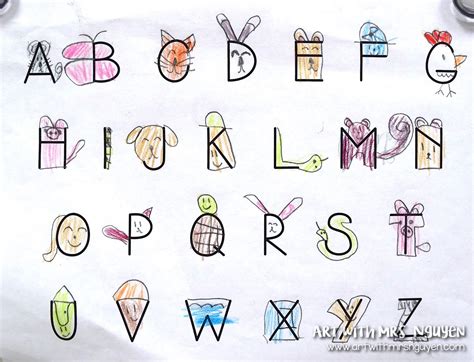
Embarking on the journey of creating a letter A drawing can be an exciting and rewarding experience. Whether you're an aspiring artist, a parent looking to engage your child in creative activities, or an educator seeking fun and educational projects, mastering the art of drawing the letter A is a fundamental skill. This guide will walk you through the process of creating a letter A drawing, from understanding the basics to adding creative flair.
Understanding the Basics of Letter A Drawing
Before diving into the creative aspects, it's essential to grasp the fundamental structure of the letter A. The letter A is composed of two diagonal lines that meet at a point and a horizontal line that connects the two diagonal lines at the base. This simple yet elegant shape forms the foundation of your letter A drawing.
Step-by-Step Guide to Drawing the Letter A
Follow these steps to create a perfect letter A drawing:
Step 1: Draw the Diagonal Lines
Begin by drawing two diagonal lines that intersect at a point. These lines should be of equal length and angle to ensure symmetry. The point where they intersect will be the apex of your letter A.
Step 2: Add the Horizontal Line
Next, draw a horizontal line that connects the two diagonal lines at the base. This line should be straight and level to maintain the balance of the letter. Ensure that the horizontal line is slightly longer than the width of the diagonal lines to create a well-proportioned letter A.
Step 3: Refine the Shape
Once you have the basic structure, refine the shape by adjusting the lines as needed. Use your eraser to correct any mistakes and ensure that the lines are smooth and even. This step is crucial for achieving a polished letter A drawing.
Step 4: Add Details and Shading
To enhance your letter A drawing, add details and shading. You can experiment with different techniques such as cross-hatching, stippling, or blending to create depth and texture. This step allows you to personalize your drawing and make it unique.
📝 Note: Practice makes perfect. Don't be discouraged if your first few attempts aren't perfect. Keep practicing, and you'll improve over time.
Creative Variations of Letter A Drawing
Once you've mastered the basic letter A drawing, you can explore creative variations to make your artwork more interesting. Here are a few ideas to inspire you:
3D Letter A Drawing
Create a 3D effect by adding shadows and highlights to your letter A. This technique involves understanding light sources and how they interact with the shape. By shading the sides and adding a highlight to the top, you can make your letter A appear to pop off the page.
Decorative Letter A Drawing
Add decorative elements to your letter A drawing to make it more visually appealing. You can incorporate patterns, flowers, or other designs around the letter. This not only enhances the aesthetic value but also adds a personal touch to your artwork.
Letter A Drawing with Animals
Combine your letter A drawing with animal themes to create a fun and educational project. For example, you can draw an alligator or an antelope within the letter A. This is a great way to engage children and teach them about animals while practicing their drawing skills.
Tips for Enhancing Your Letter A Drawing
Here are some tips to help you enhance your letter A drawing and take it to the next level:
• Practice Regularly: Consistency is key in improving your drawing skills. Set aside time each day to practice drawing the letter A.
• Use Reference Materials: Look at different styles of letter A drawings for inspiration. This can help you understand various techniques and approaches.
• Experiment with Different Mediums: Try using different mediums such as colored pencils, markers, or paints to see which one you prefer.
• Add Personal Touches: Make your letter A drawing unique by adding personal touches and details that reflect your style.
Common Mistakes to Avoid in Letter A Drawing
While creating a letter A drawing, it's essential to avoid common mistakes that can affect the quality of your artwork. Here are some pitfalls to watch out for:
• Uneven Lines: Ensure that your diagonal and horizontal lines are even and symmetrical. Uneven lines can make the letter A look distorted.
• Incorrect Proportions: Maintain the correct proportions by ensuring the horizontal line is slightly longer than the width of the diagonal lines.
• Over-Shading: Be cautious not to over-shade your drawing, as it can make the letter A look muddy and unclear.
📝 Note: Take your time and be patient. Rushing through the process can lead to mistakes and a less polished final product.
Incorporating Letter A Drawing into Educational Activities
Letter A drawing can be a valuable tool in educational settings. Here are some ways to incorporate it into learning activities:
• Alphabet Learning: Use the letter A drawing as a visual aid to teach children the alphabet. You can create a series of drawings for each letter and use them in classroom activities.
• Phonics Practice: Combine the letter A drawing with phonics practice to help children understand the sound of the letter A. This can be done through interactive games and exercises.
• Art and Language Integration: Integrate art and language by having children create their own letter A drawing and write a short story or poem about it. This encourages creativity and language development.
Letter A Drawing for Different Age Groups
Letter A drawing can be adapted for different age groups to suit their skill levels and interests. Here are some age-appropriate ideas:
Preschoolers
For preschoolers, focus on simple and fun activities. Use large sheets of paper and bright colors to make the letter A drawing more engaging. Encourage them to trace over pre-drawn letters to improve their motor skills.
Elementary School Children
Elementary school children can handle more complex tasks. Introduce them to different techniques such as shading and adding details. Encourage them to create their own variations of the letter A drawing and experiment with various mediums.
Teenagers and Adults
Teenagers and adults can explore advanced techniques and creative variations. Encourage them to create 3D effects, decorative elements, or animal-themed letter A drawings. This can be a great way to challenge their skills and foster creativity.
📝 Note: Tailor the activities to the age group's abilities and interests to ensure maximum engagement and learning.
Letter A Drawing in Art Therapy
Letter A drawing can also be used in art therapy to promote relaxation, self-expression, and emotional healing. Here are some ways to incorporate it into therapeutic practices:
• Mindfulness and Relaxation: Encourage individuals to focus on the process of drawing the letter A, paying attention to each line and detail. This can help reduce stress and promote mindfulness.
• Self-Expression: Use the letter A drawing as a medium for self-expression. Encourage individuals to add personal touches and details that reflect their emotions and experiences.
• Emotional Healing: Incorporate the letter A drawing into therapeutic exercises that help individuals process and heal from emotional traumas. This can be done through guided drawing sessions and discussions.
📝 Note: Always consult with a qualified art therapist before incorporating letter A drawing into therapeutic practices.
Letter A Drawing in Digital Art
In the digital age, letter A drawing can be created using various software and tools. Here are some popular options:
• Adobe Illustrator: This vector graphics editor is ideal for creating precise and scalable letter A drawings. It offers a wide range of tools and features for digital artists.
• Procreate: This digital illustration app for iPad is perfect for creating letter A drawings with a natural, hand-drawn feel. It offers a variety of brushes and tools to enhance your artwork.
• SketchBook: This digital drawing and painting application is user-friendly and suitable for both beginners and professionals. It provides a range of tools for creating letter A drawings and other artwork.
📝 Note: Experiment with different digital tools to find the one that best suits your style and needs.
Letter A Drawing in Calligraphy
Calligraphy is an art form that involves beautiful handwriting and lettering. Incorporating letter A drawing into calligraphy can add a unique touch to your artwork. Here are some tips for creating calligraphic letter A drawings:
• Choose the Right Tools: Use calligraphy pens, nibs, and inks to create elegant and flowing letter A drawings. Experiment with different styles and techniques to find your preferred method.
• Practice Consistency: Consistency is key in calligraphy. Practice drawing the letter A repeatedly to improve your handwriting and lettering skills.
• Add Ornamental Elements: Enhance your calligraphic letter A drawing by adding ornamental elements such as flourishes, swirls, and decorative borders.
📝 Note: Calligraphy requires patience and practice. Don't be discouraged if your initial attempts aren't perfect. Keep practicing, and you'll improve over time.
Letter A Drawing in Typography
Typography is the art and technique of arranging type to make written language legible, readable, and appealing when displayed. Incorporating letter A drawing into typography can create visually stunning designs. Here are some ways to integrate letter A drawing into typography:
• Custom Fonts: Create custom fonts that incorporate letter A drawing elements. This can be done using font design software such as FontForge or Glyphs.
• Logo Design: Use letter A drawing as a base for logo designs. This can be particularly effective for brands with names starting with the letter A.
• Poster Design: Incorporate letter A drawing into poster designs to create eye-catching and memorable visuals. This can be done by integrating the letter A into the overall design or using it as a focal point.
📝 Note: Typography requires a keen eye for detail and a strong understanding of design principles. Experiment with different styles and techniques to find your unique approach.
Letter A Drawing in Craft Projects
Letter A drawing can be incorporated into various craft projects to add a personal touch. Here are some creative ideas:
• Paper Crafts: Use letter A drawing as a template for paper crafts such as origami, paper cutting, or paper collage. This can be a fun and engaging activity for both children and adults.
• Fabric Crafts: Incorporate letter A drawing into fabric crafts such as embroidery, appliqué, or quilting. This can add a unique and personalized touch to your projects.
• Woodworking: Use letter A drawing as a design element in woodworking projects. This can be done by carving, burning, or painting the letter A onto wooden surfaces.
📝 Note: Craft projects allow for endless creativity. Don't be afraid to experiment with different materials and techniques to create unique and personalized artwork.
Letter A Drawing in Educational Resources
Letter A drawing can be a valuable resource in educational settings. Here are some ways to incorporate it into learning materials:
• Worksheets: Create worksheets that feature letter A drawing for practice and reinforcement. These can be used in classrooms, homeschooling, or tutoring sessions.
• Flashcards: Design flashcards with letter A drawing to help children learn and recognize the letter. These can be used for interactive games and activities.
• Posters: Create posters that feature letter A drawing and other educational content. These can be displayed in classrooms, libraries, or homes to promote learning and engagement.
📝 Note: Educational resources should be visually appealing and engaging to capture the attention of learners.
Letter A Drawing in Art Exhibitions
Letter A drawing can be showcased in art exhibitions to highlight the beauty and versatility of this simple yet elegant shape. Here are some ideas for incorporating letter A drawing into art exhibitions:
• Solo Exhibitions: Create a solo exhibition featuring a collection of letter A drawings. This can showcase your unique style and techniques, providing a comprehensive view of your artistic journey.
• Group Exhibitions: Participate in group exhibitions that focus on lettering and typography. This can provide an opportunity to showcase your letter A drawing alongside other artists' work, fostering collaboration and inspiration.
• Themed Exhibitions: Organize themed exhibitions that incorporate letter A drawing into various art forms. This can include paintings, sculptures, digital art, and more, creating a diverse and engaging display.
📝 Note: Art exhibitions provide a platform to share your work with a wider audience. Take advantage of this opportunity to showcase your skills and creativity.
Letter A Drawing in Digital Media
In the digital age, letter A drawing can be shared and promoted through various digital media platforms. Here are some ways to leverage digital media for your letter A drawing:
• Social Media: Share your letter A drawing on social media platforms such as Instagram, Pinterest, and Facebook. Use relevant hashtags and engage with your audience to gain visibility and feedback.
• Blogs and Websites: Create a blog or website dedicated to your letter A drawing and other artwork. Share tutorials, tips, and behind-the-scenes content to engage your audience and build a community.
• Online Courses: Develop online courses that teach the art of letter A drawing. This can be done through platforms such as Udemy, Skillshare, or Teachable, providing a valuable resource for aspiring artists.
📝 Note: Digital media offers a wide range of opportunities to share and promote your artwork. Experiment with different platforms and strategies to reach a broader audience.
Letter A Drawing in Collaborative Projects
Collaborative projects can enhance the creative process and provide new perspectives. Here are some ways to incorporate letter A drawing into collaborative projects:
• Art Collaborations: Collaborate with other artists to create a series of letter A drawings. This can involve exchanging ideas, techniques, and materials to produce unique and innovative artwork.
• Community Projects: Engage in community projects that involve letter A drawing. This can include mural painting, public art installations, or educational workshops, fostering a sense of community and shared creativity.
• Interdisciplinary Projects: Explore interdisciplinary projects that combine letter A drawing with other art forms such as music, dance, or theater. This can create a rich and immersive experience for both the artists and the audience.
📝 Note: Collaborative projects offer a unique opportunity to learn from others and expand your artistic horizons.
Letter A Drawing in Personal Growth
Engaging in letter A drawing can be a rewarding journey of personal growth. Here are some ways to leverage this activity for self-improvement:
• Mindfulness and Meditation: Use letter A drawing as a mindfulness practice. Focus on the process of drawing, paying attention to each line and detail, to promote relaxation and mental clarity.
• Creative Expression: Explore your creativity through letter A drawing. Experiment with different styles, techniques, and mediums to express your unique artistic voice.
• Goal Setting: Set goals for your letter A drawing practice. Whether it's mastering a new technique or completing a series of drawings, goal setting can provide motivation and a sense of accomplishment.
📝 Note: Personal growth is a continuous journey. Embrace the process and enjoy the learning experience.
Letter A Drawing in Cultural Contexts
Letter A drawing can be explored within various cultural contexts, adding depth and meaning to your artwork. Here are some cultural perspectives to consider:
• Western Calligraphy: Explore Western calligraphy styles such as Gothic, Roman, and Italic. Incorporate these styles into your letter A drawing to create elegant and timeless designs.
• Eastern Calligraphy: Delve into Eastern calligraphy styles such as Chinese, Japanese, and Arabic. These styles often emphasize fluidity and grace, providing a unique approach to letter A drawing.
• Indigenous Art: Incorporate elements of indigenous art into your letter A drawing. This can involve using traditional symbols, patterns, and colors to create culturally rich and meaningful artwork.
📝 Note: Cultural contexts can enrich your letter A drawing and provide a deeper understanding of different artistic traditions.
Letter A Drawing in Environmental Awareness
Letter A drawing can be used to raise awareness about environmental issues. Here are some ways to incorporate environmental themes into your artwork:
• Eco-Friendly Materials: Use eco-friendly materials such as recycled paper, non-toxic inks, and sustainable brushes for your letter A drawing. This promotes environmental responsibility and sustainability.
• Nature-Inspired Designs: Incorporate nature-inspired designs into your letter A drawing. This can include elements such as leaves, flowers, and animals, highlighting the beauty and importance of the natural world.
• Environmental Messages: Use your letter A drawing to convey environmental messages. This can be done through symbols, text, or